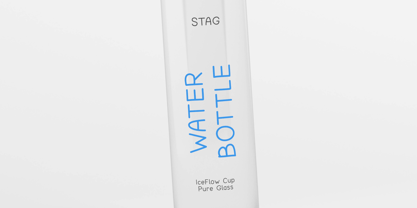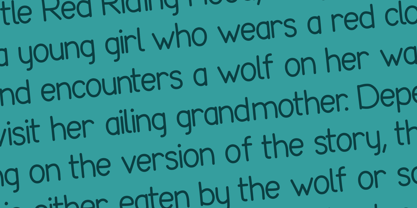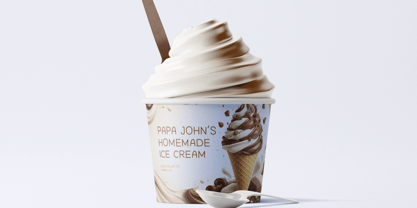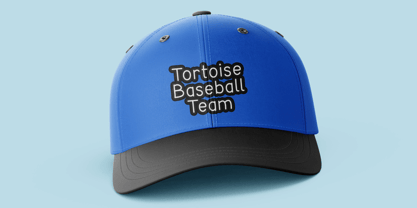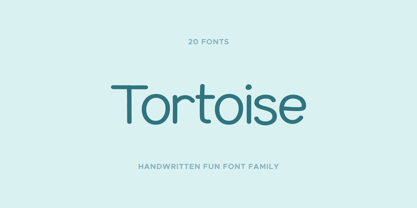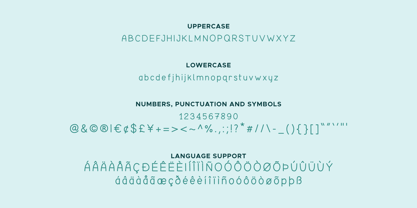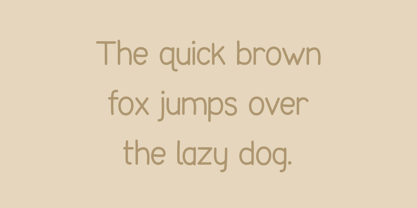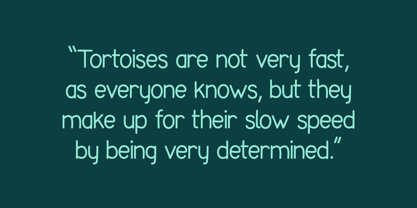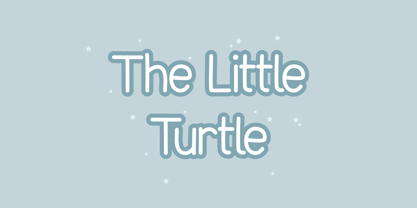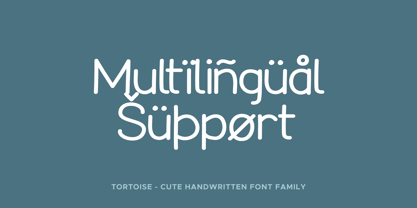
Tortoise
by OtterType
The Tortoise Font Family was designed by Mariia Çakıcı and published by OtterType. Tortoise contains 20 styles and family package options. More about this family
Tortoise is a playful handwritten pencil-style font with brush and textured variants, perfect for kids designs, branding, posters, and crafts. With its plain stroke structure and slightly uneven, childlike forms, Tortoise feels warm, friendly, and delightfully imperfect — like notes scribbled in the margins of a notebook. The family includes a wide range of expressive styles — from clean Regular and Italic to textured variations like Brush, Ink, Rough, Scratch, Grit, Rust, Worn, Cut, and Eroded — each with matching italics. These options allow designers to move from soft pencil lines to distressed, tactile finishes while maintaining a consistent handwritten identity. Supporting an extensive range of Latin-based languages, Tortoise is versatile for international projects across branding, packaging, children’s books, educational materials, posters, social media graphics, merchandise, and creative stationery. Language support Afrikaans, Albanian, Asu, Basque, Bemba, Bena, Cebuano, Chiga, Cornish, Corsican, Danish, English, Estonian, Faroese, Filipino, Finnish, French, Friulian, Galician, German, Gusii, Icelandic, Ido, Indonesian, Interlingua, Interlingue, Irish, Italian, Javanese, Jju, Kabuverdianu, Kalaallisut, Kalenjin, Kinyarwanda, Ligurian, Lojban, Lombard, Low German, Luo, Luxembourgish, Luyia, Machame, Makhuwa, Makhuwa-Meetto, Makonde, Malagasy, Malay, Manx, Morisyen, North Ndebele, Northern Sotho, Norwegian Bokmål, Norwegian Nynorsk, Nyankole, Occitan, Oromo, Portuguese, Rejang, Romansh, Rombo, Rundi, Rwa, Samburu, Sango, Sangu, Sardinian, Scottish Gaelic, Sena, Shambala, Shona, Soga, Somali, South Ndebele, Southern Sotho, Spanish, Sundanese, Swahili, Swati, Swedish, Swiss German, Taita, Taroko, Teso, Tsonga, Tswana, Vunjo, Walloon, Wolastoqey, Xhosa, Zhuang, Zulu